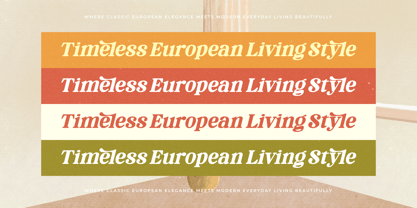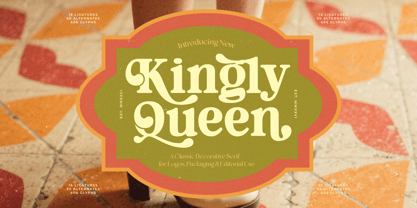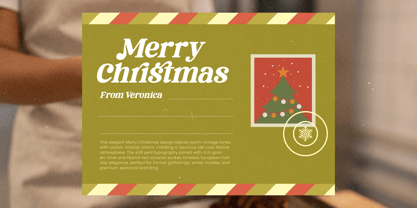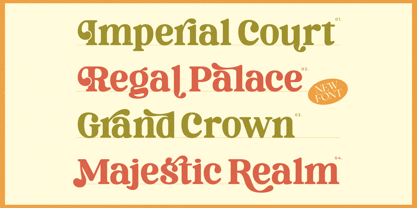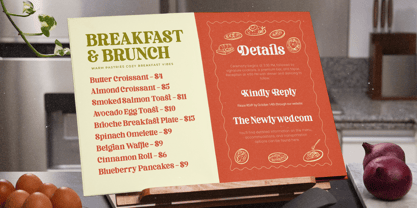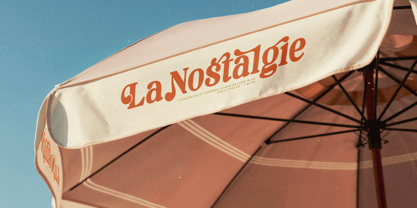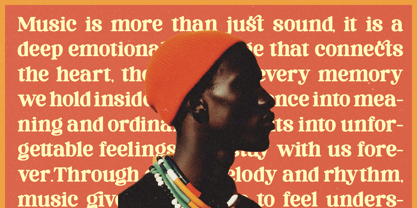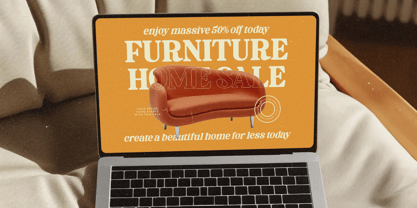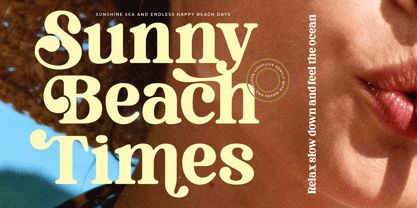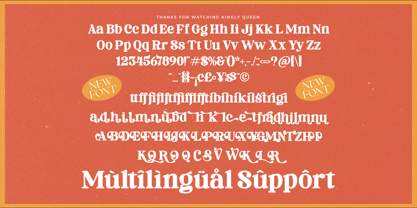
Kingly Queen
La familia tipográfica Kingly Queen fue diseñada por Heru Utama Putra y publicada por Timelesstype Studio. Kingly Queen contiene 2 estilos y opciones de paquete familiar. Más información sobre esta familia
Kingly Queen is a classic decorative serif that blends vintage charm with a bold, royal personality. Its sculpted curves, playful terminals, and ornamental serif structure make it perfect for logos, packaging, editorial layouts, boutique branding, and nostalgic displays. With 16 ligatures and 60 alternates, the typeface offers enough stylistic variety to create expressive, high-impact designs. Kingly Queen brings a warm retro aesthetic—elegant, confident, and unmistakably regal—while staying clean and readable across modern applications.